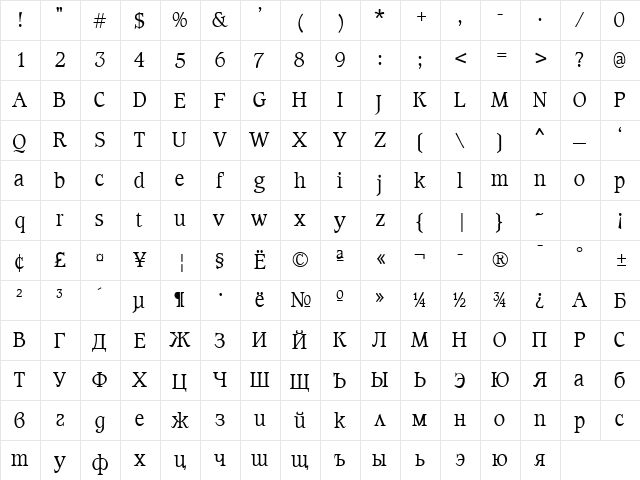
Cotlin Normal
Design Context for Cotlin Typeface
Cotlin is a composed and adaptable typeface that performs quietly and consistently across a wide range of design contexts.